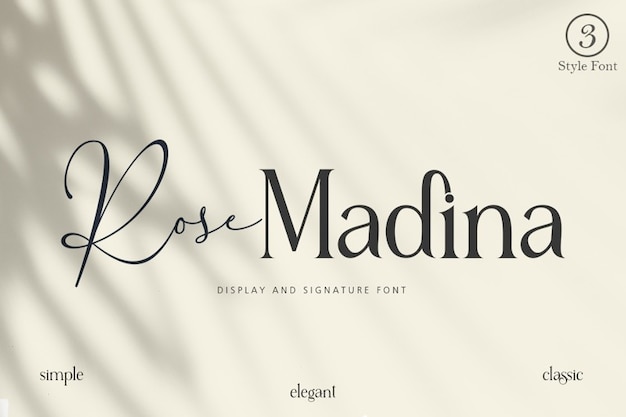
Rose Madina
Rose Madina Font
Struggle Studio
Rose Medina font is elegance in simplicity—like a timeless rose in a classic garden. Each letter embodies effortless grace, a nod to classic beauty. It's simple yet exudes an understated charm, perfect for adding a touch of classic elegance to your designs. It's the font that whispers sophistication with its simple, timeless allure.